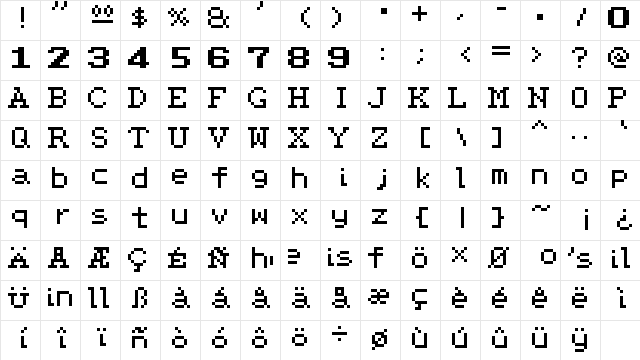
Complete Earthbound Beginnings Regular glyph index. Displaying only characters natively supported by Earthbound Beginnings Regular font.
Earthbound Beginnings is a composed and adaptable typeface that performs quietly and consistently across a wide range of design contexts.
Pro Tip: Use Earthbound Beginnings in both headline and body roles to test its range before committing to a single application.